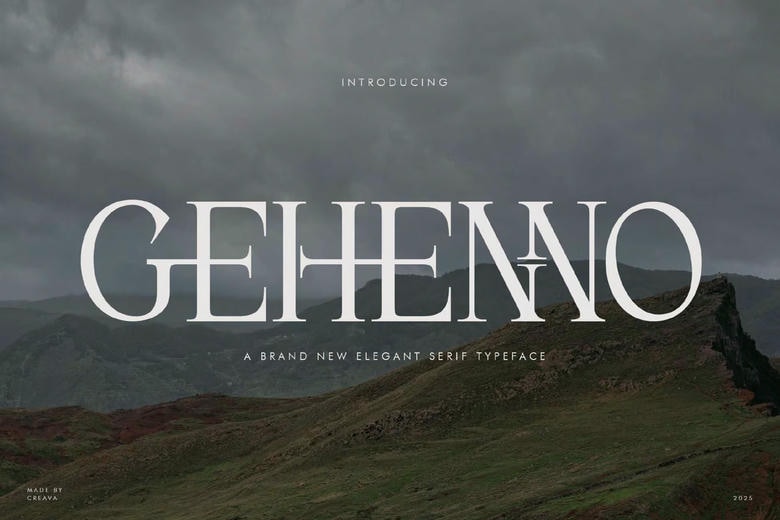
Gehenno Font
Gehenno is an elegant serif font that blends sophistication with timeless appeal. Its refined letterforms make it suitable for movie posters, luxury branding, editorial design, book covers, wedding invitations, and high-end packaging. Gehenno adds a touch of class and elegance to any creative project.
Gehenno Serif Font